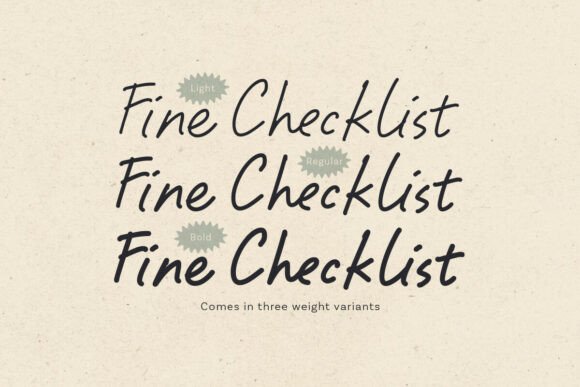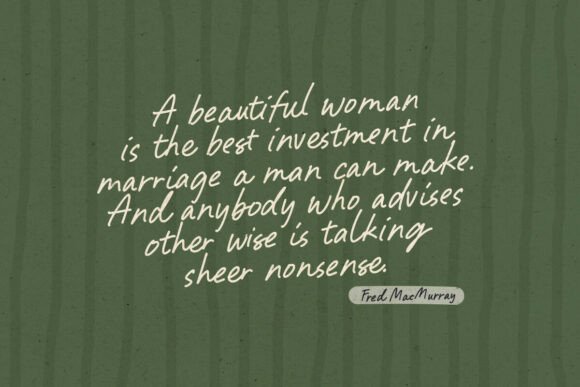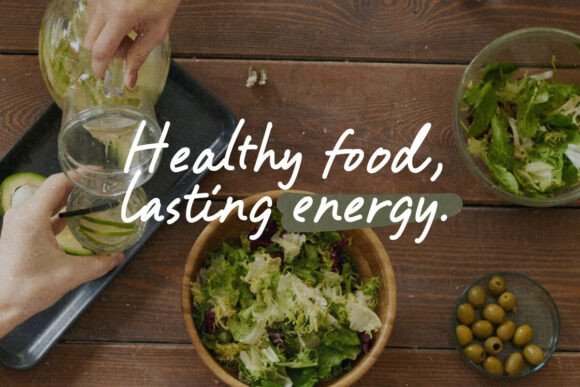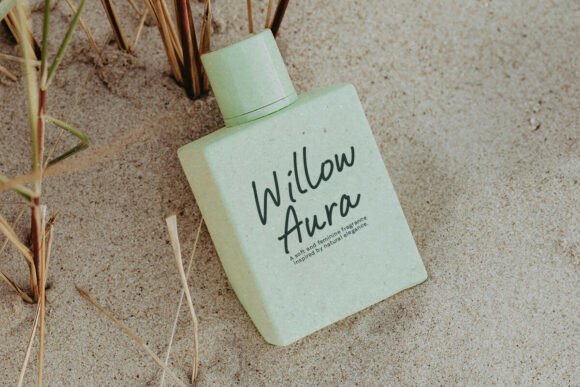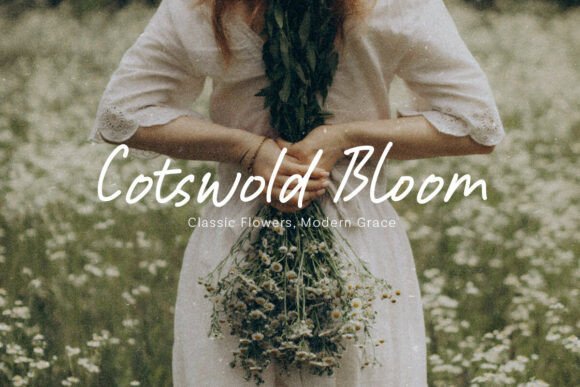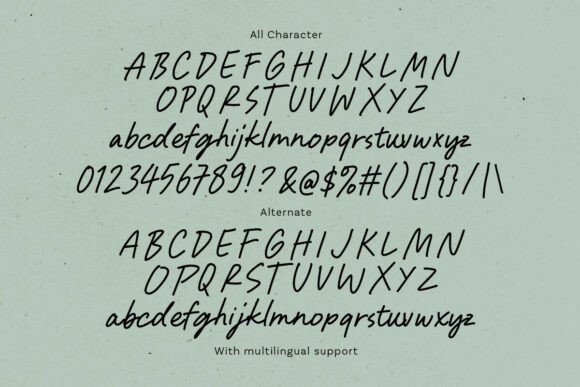
Discover the Elegance of Fine Checklist Font: A Clean Handwritten Typeface
In the world of typography, finding the perfect font that combines elegance with readability can be a daunting task. However, if you’re looking for a typeface that exudes a natural, everyday writing feel while maintaining a level of sophistication, look no further than the Fine Checklist Font. This clean handwritten typeface is designed to bring a calm and friendly vibe to your designs, making it an excellent choice for a wide range of projects.
Characteristics of Fine Checklist Font
Fine Checklist is characterized by its smooth, slightly textured strokes that provide an easy-to-read experience. The font comes in three weights: light, regular, and bold, offering flexibility for various design applications. Whether you’re working on notes, planners, packaging, labels, posters, or casual branding, this font adapts seamlessly to deliver a simple, honest, and relaxed aesthetic.
One of the standout features of the Fine Checklist font is its versatility. With its range of weights, you can create a visual hierarchy that guides the viewer’s eye through your design effortlessly. This makes it an ideal choice for:
- Wedding photography: Add a touch of elegance and romance to your wedding photography with Fine Checklist.
- Beauty branding: Elevate your beauty brand with a sophisticated and polished look.
- Editorial layouts: Bring a human touch to your editorial designs without compromising on readability.
- Fine dining menus: Impress your customers with a refined and upscale menu design.
- Luxury clothing brands: Convey high-end quality with a font that exudes sophistication.
- High-end artisan products: Showcase your products in a beautiful, elegant light.
A Font That Feels Human
Fine Checklist offers a spontaneous yet sophisticated appearance, making it perfect for designs that require a “human” touch. The font’s natural writing feel and smooth strokes create a sense of approachability, drawing the viewer in and engaging them with your content.
Technical Features
In addition to its aesthetic qualities, Fine Checklist font also boasts impressive technical features:
- PUA encoding: Enjoy seamless access to the font’s full library of stylistic features.
- Multi-language support: Use Fine Checklist for projects in various languages.
Why Choose Fine Checklist Font?
With so many fonts available, why choose Fine Checklist? Here are just a few reasons:
- Elegance and Readability: Fine Checklist strikes the perfect balance between elegance and readability.
- Versatility: With its range of weights and applications, Fine Checklist adapts to your design needs.
- Human Touch: This font brings a natural, human feel to your designs, setting it apart from more traditional typefaces.
Fine Checklist Font is a versatile and elegant typeface that brings a unique blend of sophistication and approachability to your designs. Whether you’re a designer, craftsperson, or simply someone looking for the perfect font for your project, Fine Checklist is an excellent choice. Its range of weights, technical features, and beautiful aesthetic make it an invaluable addition to your typographic arsenal.